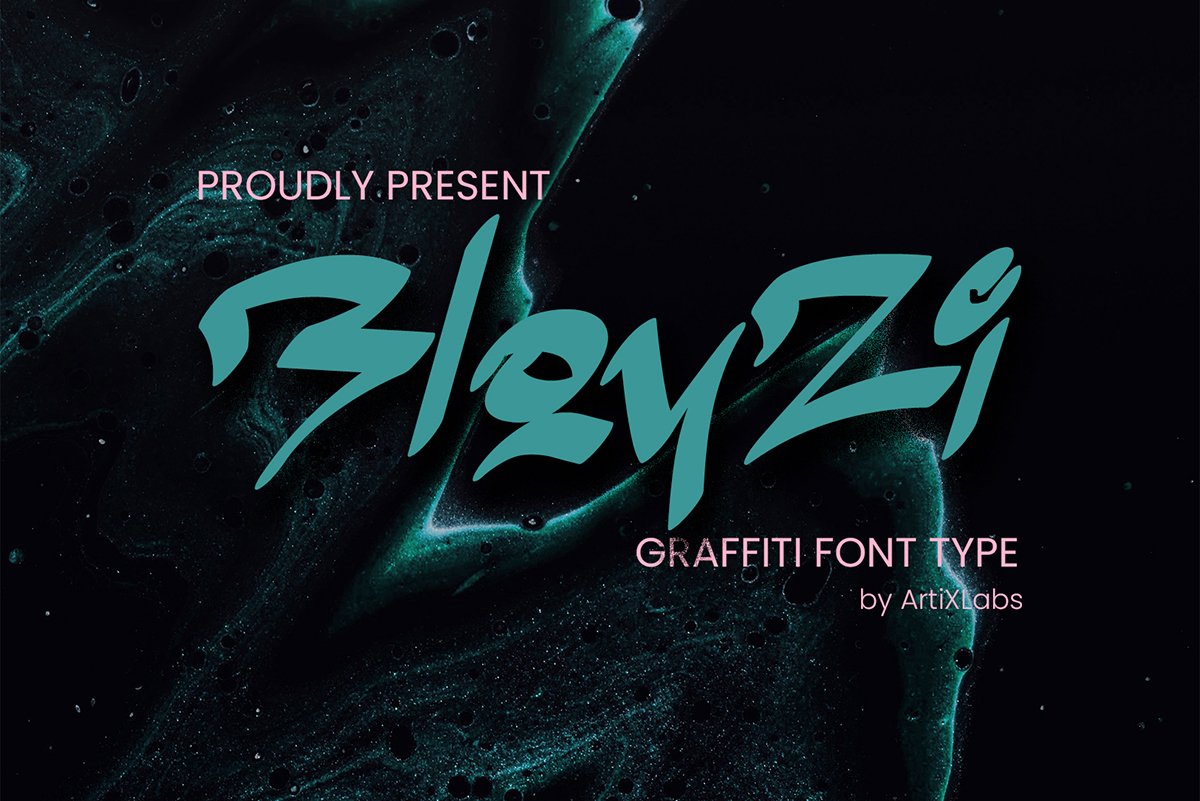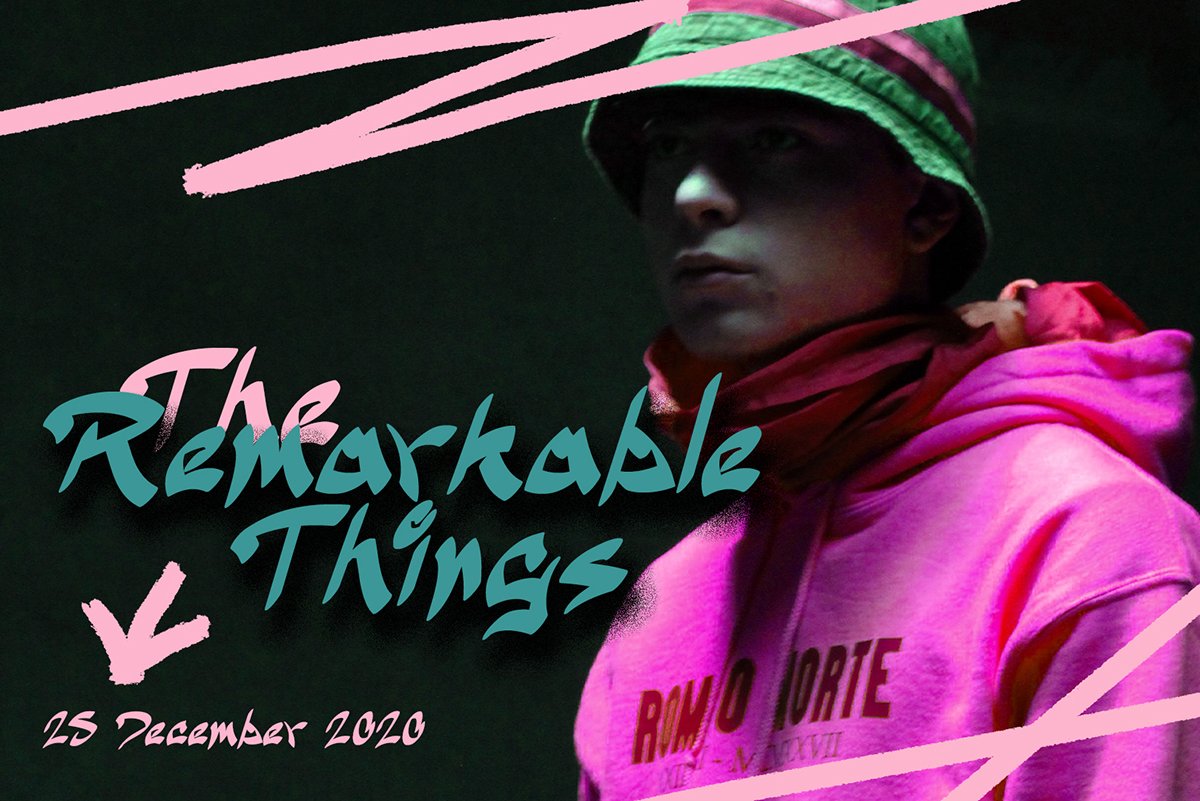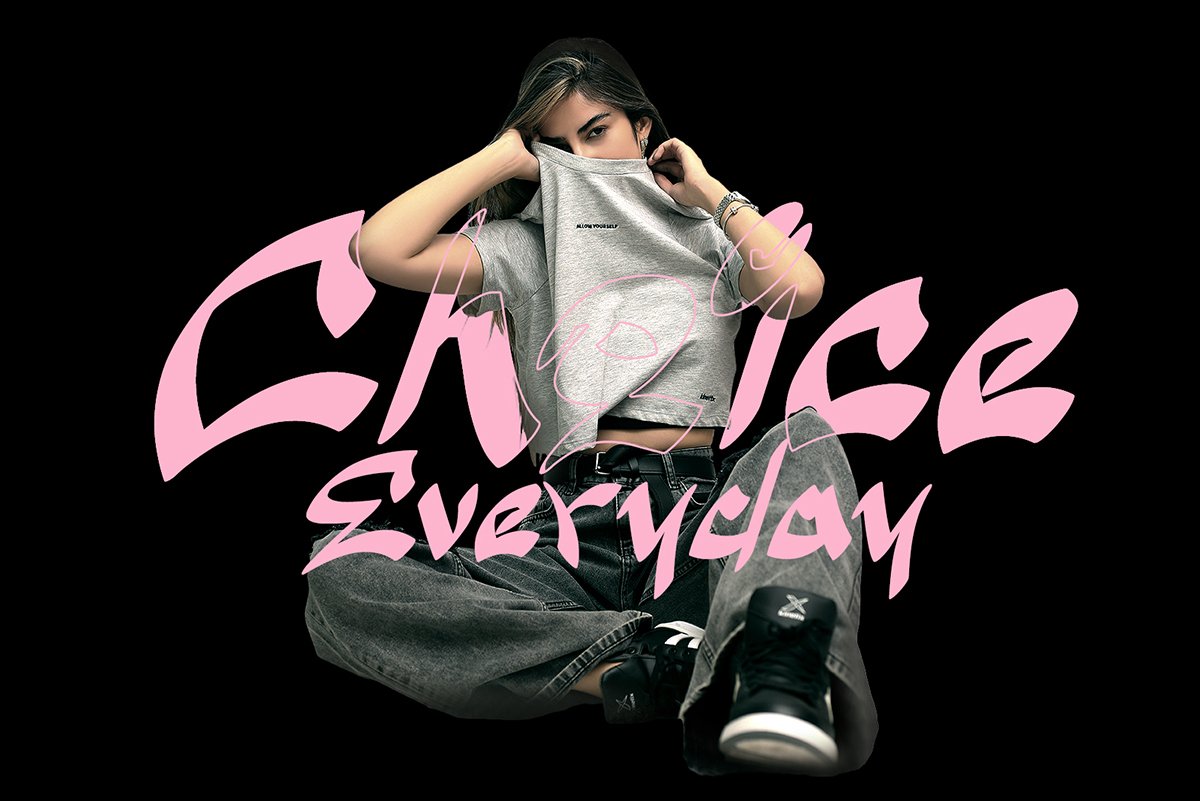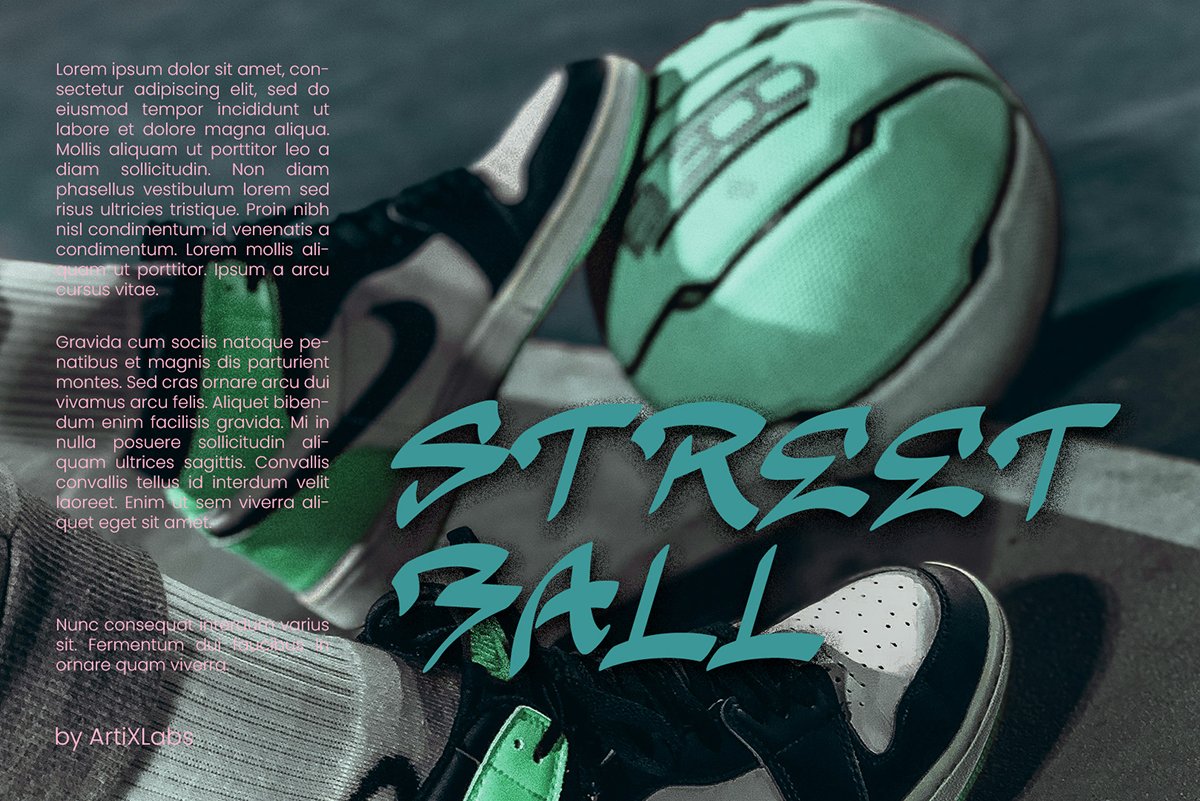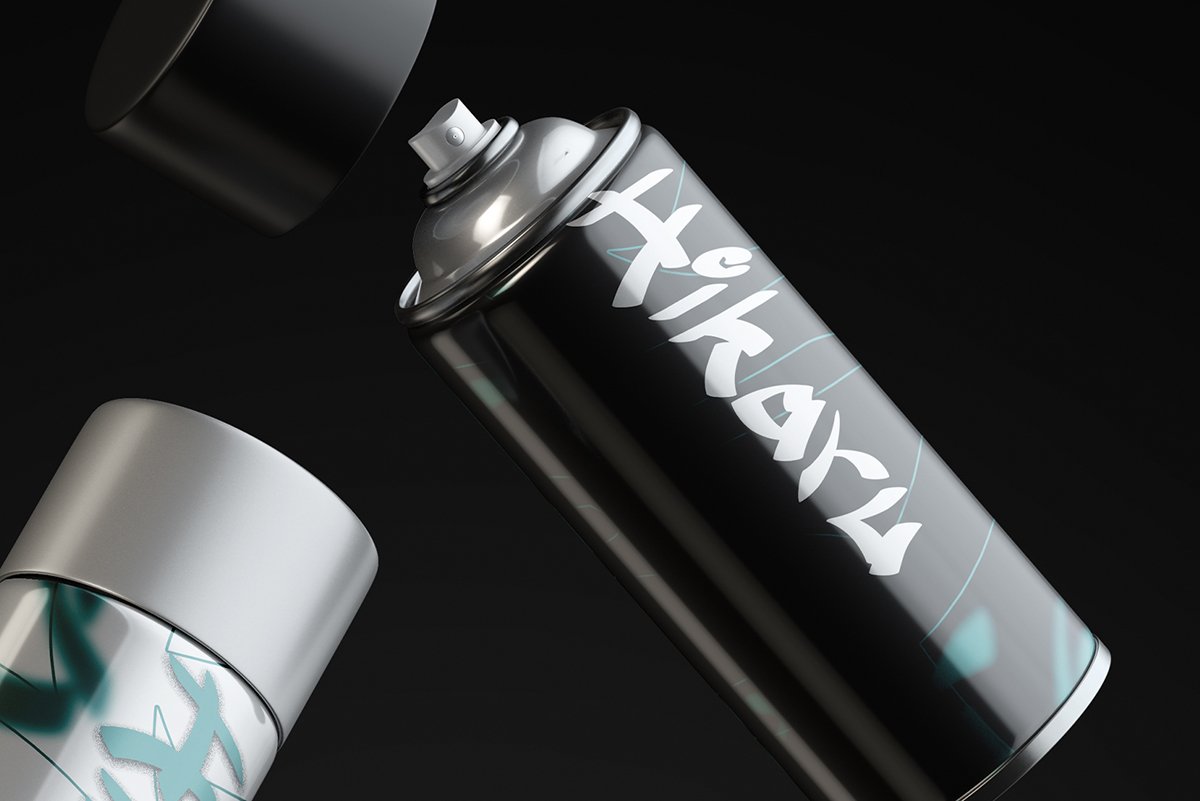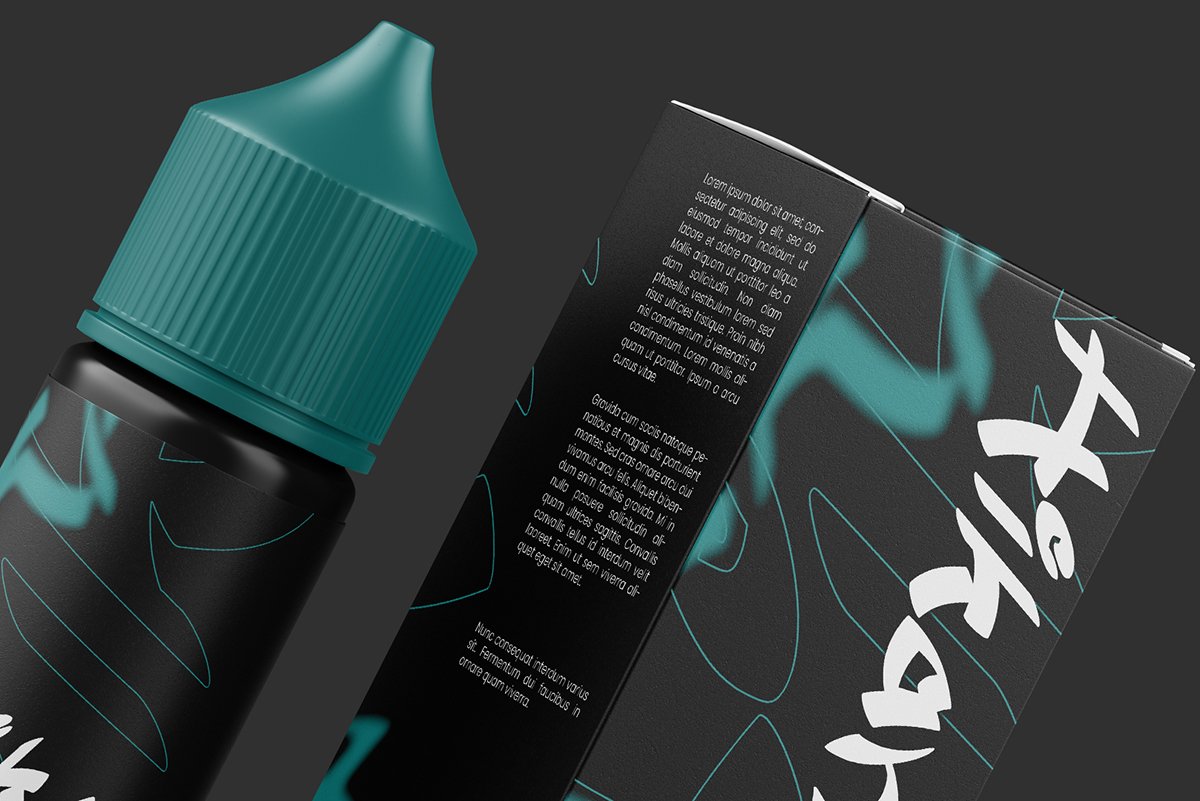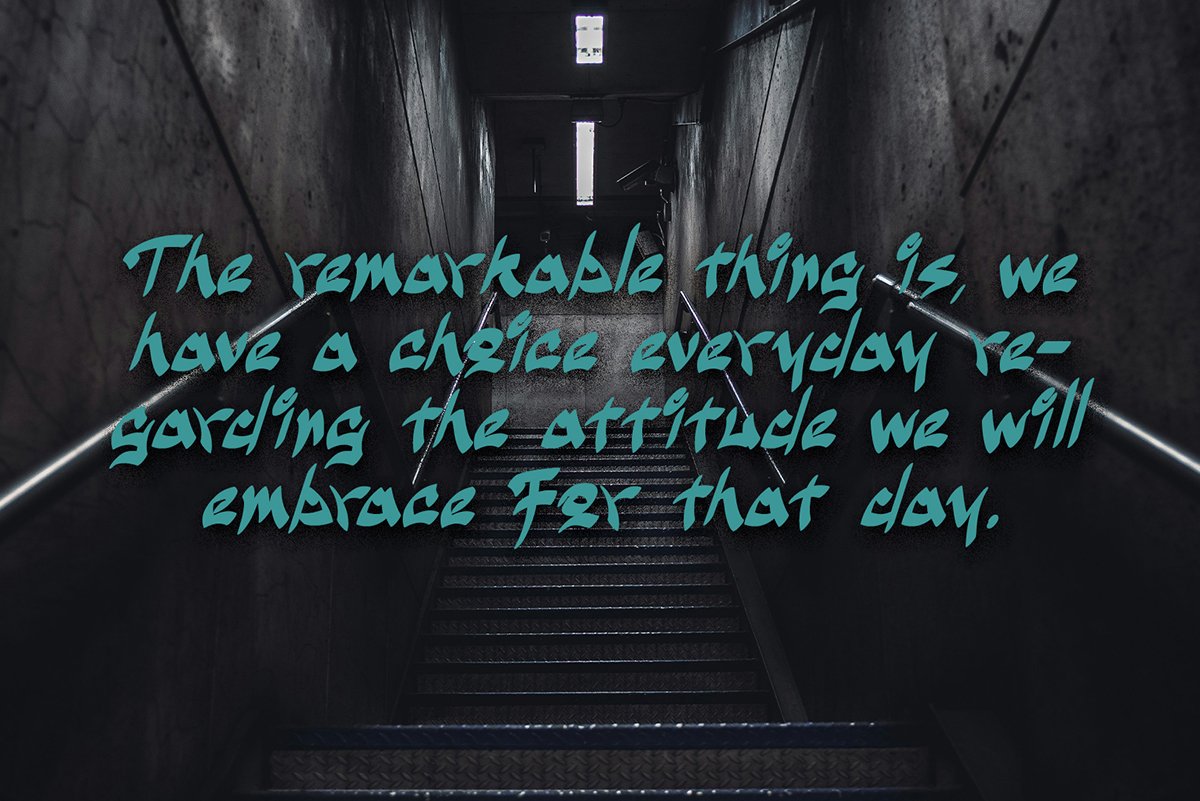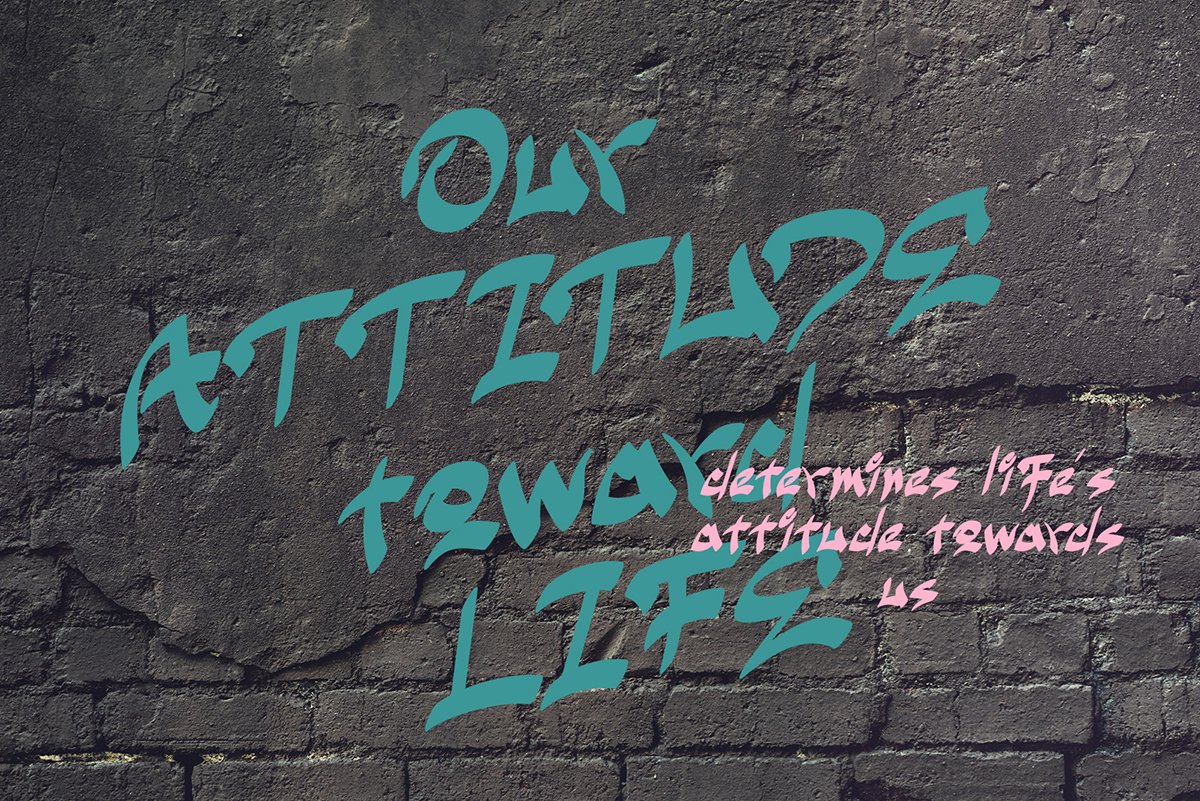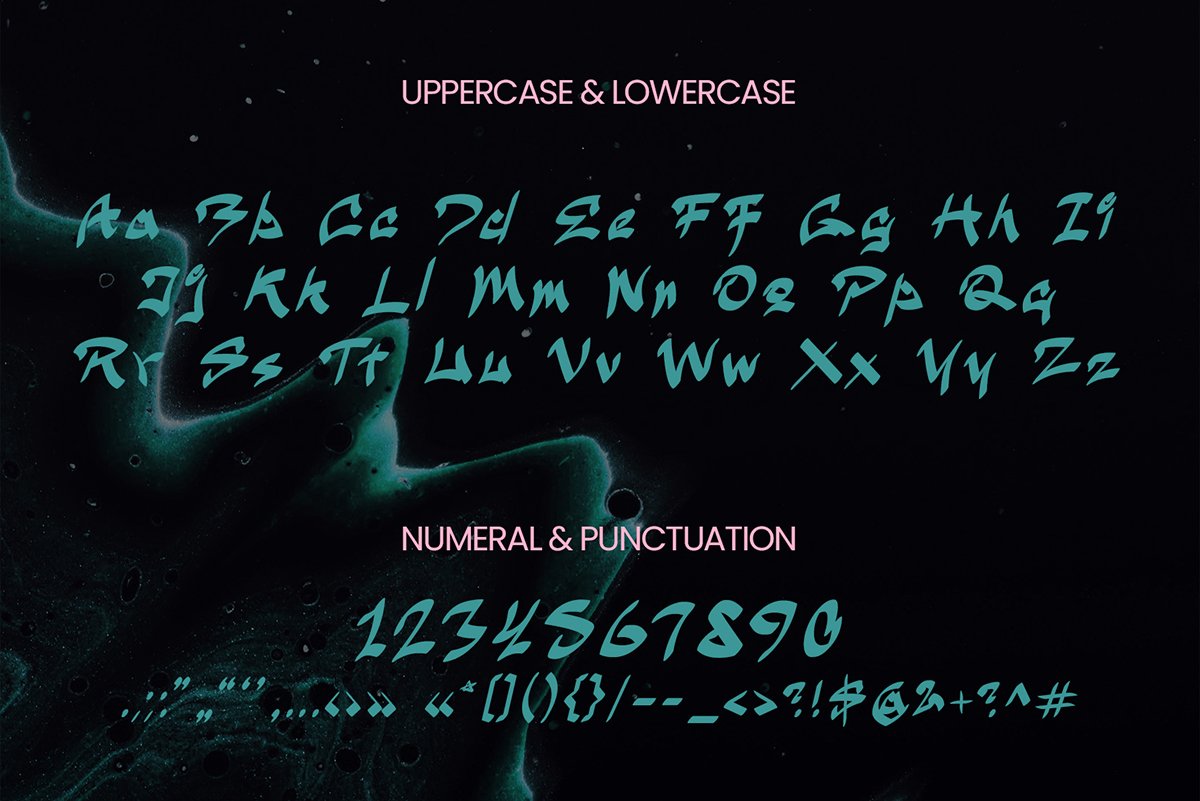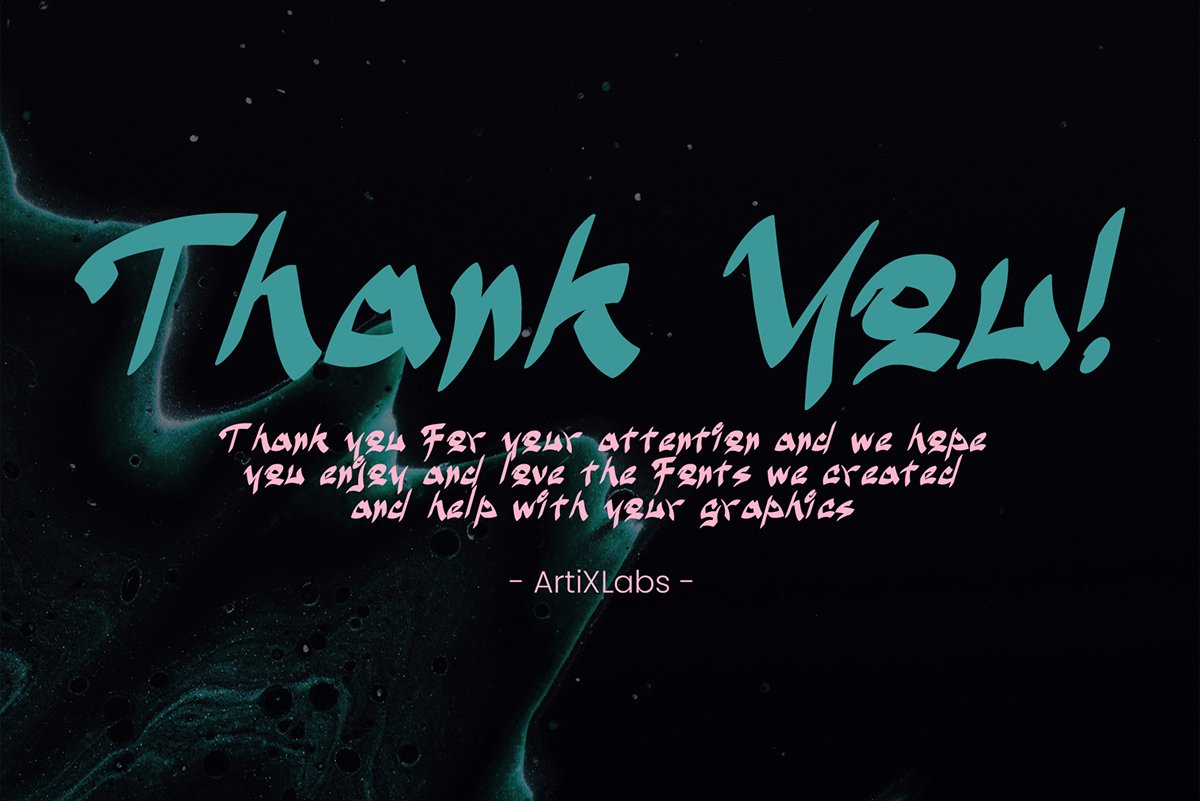
BloyZi Graffiti Brush Typeface is a bold graffiti brush display font featuring smooth strokes and dynamic hand-style energy. Designed with a balance between fluid motion and urban attitude, BloyZi captures the essence of modern street art with a clean yet expressive look.